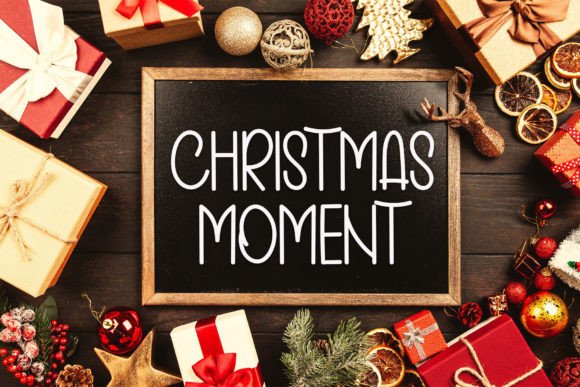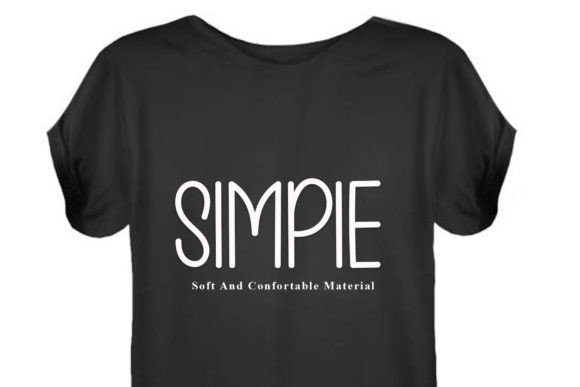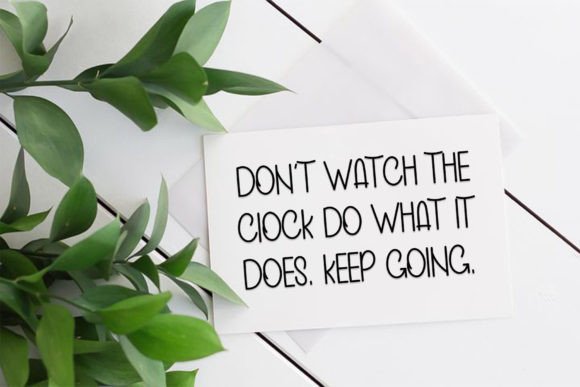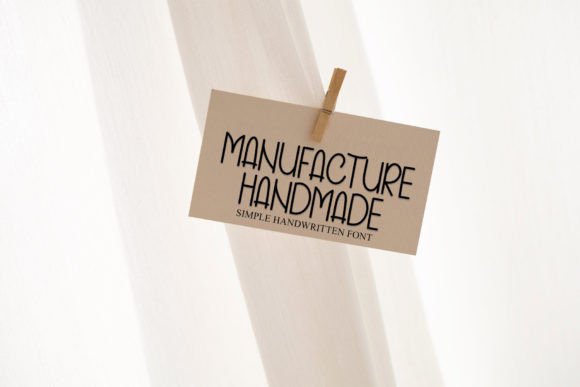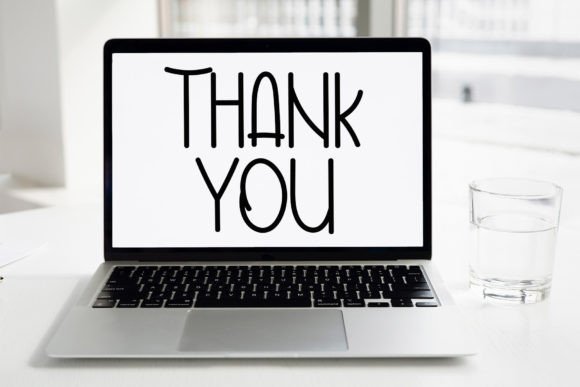
Get Ready to Peel Back the Layers of Creativity with Banana Font
Have you ever stared at a blank page, waiting for inspiration to strike? For many designers, that moment of creative spark is what drives them to push the boundaries of their craft. It’s the thrill of bringing a new idea to life, of watching a concept transform into a stunning visual masterpiece. And that’s exactly what the Banana Font is designed to help you achieve.
This beautiful display font boasts an elegant touch, making it perfect for a wide range of projects. With its incredibly distinct and timeless style, the Banana Font is a valuable addition to any designer’s toolkit. Whether you’re working on a logo, a brochure, or a website, this versatile font is sure to elevate your designs and leave a lasting impression.
So why settle for ordinary when you can have extraordinary with the Banana Font? Fall in love with its unique style and let it be the key to unlocking your full creative potential.
Banana Font Key Features
- Unique Characteristics: Banana Font has a distinctive, playful design with rounded shapes and a relaxed feel, making it ideal for casual and creative projects.
- Font Style: Banana Font comes in two styles: Regular and Bold, offering users flexibility in choosing the right font weight for their project.
- Language Support: Banana Font supports a wide range of languages, including Latin, Cyrillic, and Greek alphabets, making it a versatile choice for multilingual projects.
Designer Review: Banana Font
I recently had the chance to work with the Banana Font, and I’m sharing my honest thoughts on this quirky font. ✨
- Playful and fun vibe: The Banana Font is perfect for adding a touch of whimsy to your designs.
- Unique character shapes: The font’s irregularities make it stand out and add visual interest.
- Clean lines: The font’s lines are smooth and well-defined, making it easy to read.
However, I did encounter some limitations while working with the Banana Font: ⚠️
- Difficult to customize: The font’s quirky nature makes it challenging to adjust the spacing and alignment.
- Not ideal for body text: The font’s size and spacing can make it difficult to read in larger blocks of text.
- Limited font sizes: The font’s unique shape can make it difficult to scale up or down without losing its charm.
Overall, the Banana Font is a great choice for adding a touch of personality to your designs, but it’s not a go-to font for body text or serious applications.
Banana Font is perfect for creating playful and fun designs, such as children’s books, party invitations, and social media graphics. It’s also great for adding a touch of whimsy to logos and branding materials.